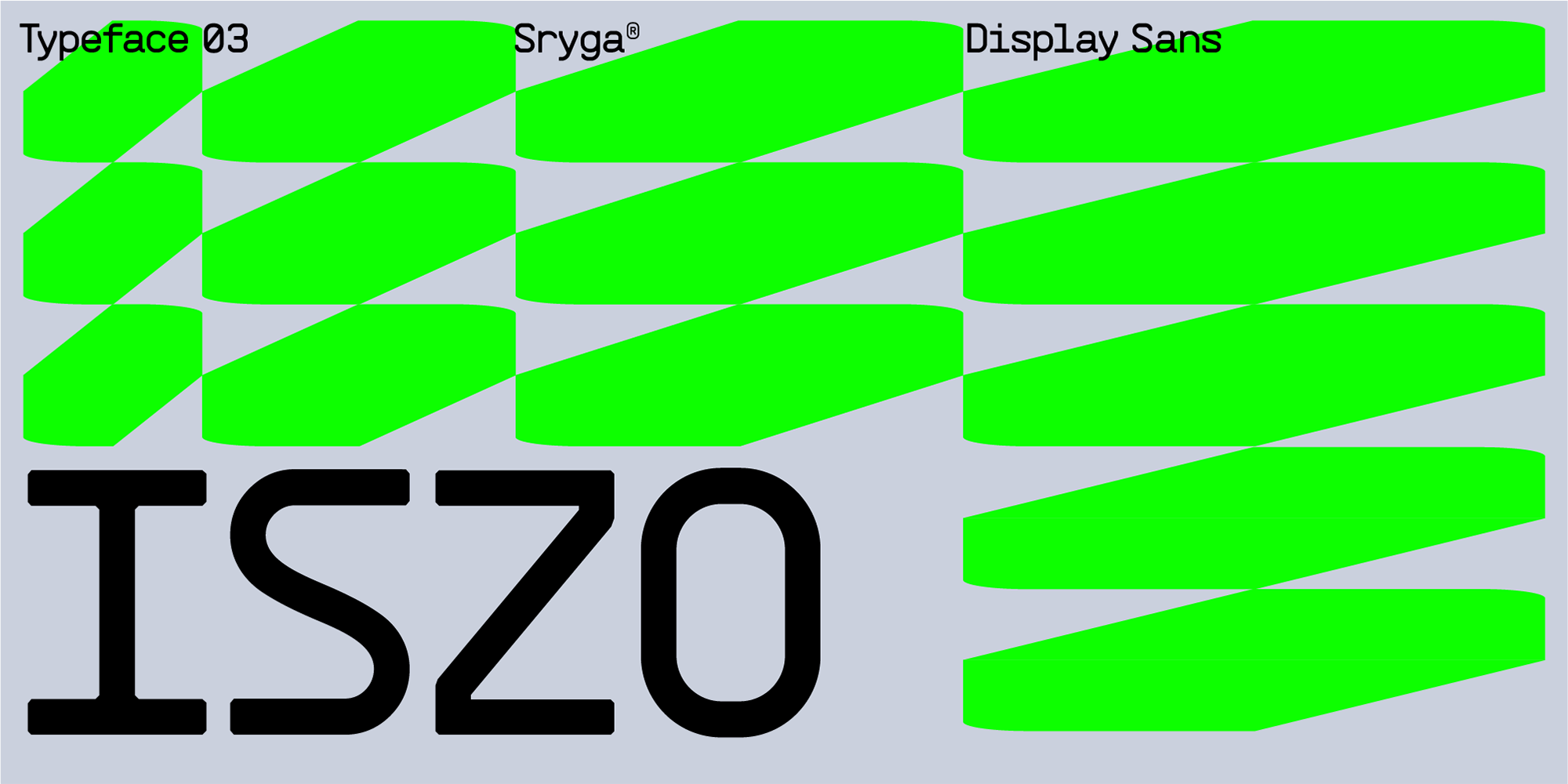
ISZO Font is perfect for cutting-edge tech startup branding, futuristic interface design systems, innovative digital agency logos, modern architectural firm presentations, contemporary art gallery exhibitions, progressive design studio portfolios, advanced robotics company marketing, sleek automotive technology advertising, minimalist corporate identity systems, and forward-thinking innovation conference materials. Its sophisticated modern character makes it ideal for projects requiring contemporary innovation and technological sophistication authenticity.
What makes ISZO Font exciting is its sleek embodiment of modern innovation and technological sophistication with geometric letterforms and contemporary characteristics that capture the essence of digital advancement and design innovation excellence. The font features precise proportions, tech-inspired details, and systematic character construction that create authentic modern atmosphere and innovative appeal. Its sophisticated personality brings clarity and technological credibility to contemporary designs while maintaining the readability essential for digital communications and innovation presentations. The carefully crafted modern elements ensure technological accuracy while preserving the distinctive character that embodies the essence of contemporary design and digital excellence.
ISZO Font comes in multiple innovative variations including Light, Regular, Medium, Bold, and Tech styles. Each family member maintains the distinctive modern character while offering comprehensive flexibility for contemporary typography and innovation brand system development. The complete font family includes alternate characters, tech symbols, and modern decorative elements that provide extensive tools for creating immersive digital design experiences and authentic innovation brand storytelling.
Whether you're developing technology brands, design agencies, or innovation-focused projects, ISZO Font Free Download provides the contemporary sophistication needed to communicate with tech-savvy audiences and design professionals who appreciate modern innovation and technological excellence. The font's sleek appeal resonates with designers, tech entrepreneurs, and innovation professionals seeking authentic contemporary credibility and technological sophistication. Its comprehensive character set includes tech symbols and modern marks, making it perfect for creating complete innovation brand systems and memorable contemporary storytelling across diverse digital applications and technology-focused design projects that celebrate modern innovation and technological excellence.